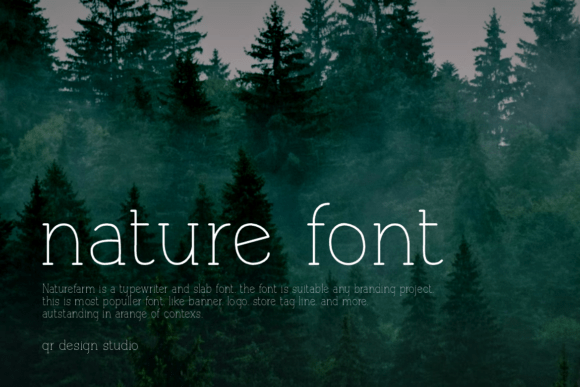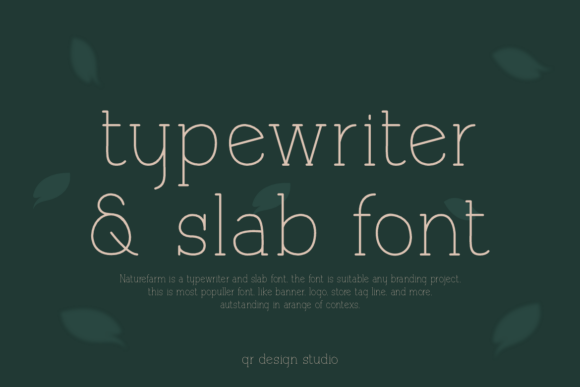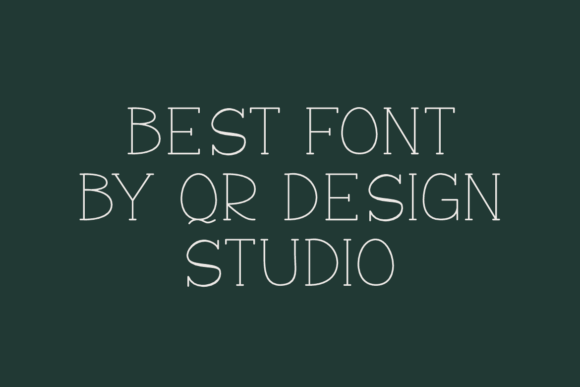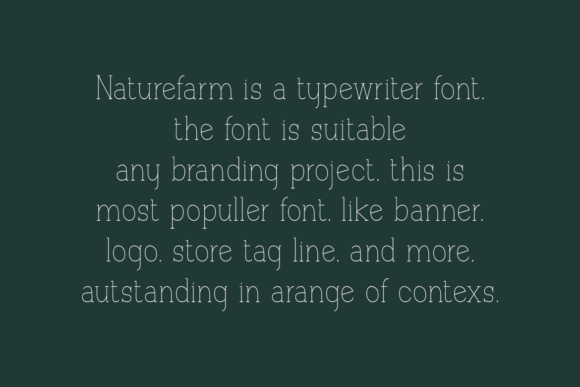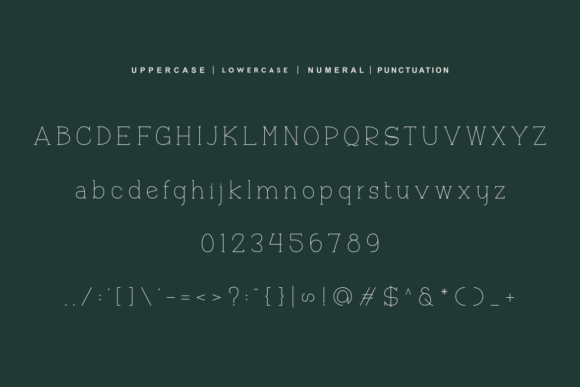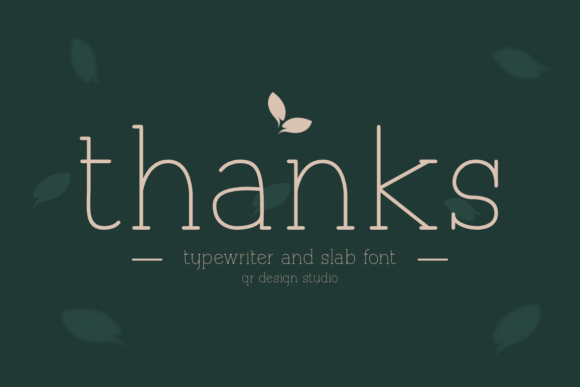
Introduction to Naturefarm Font
Have you ever found yourself wandering through a lush garden or a charming farmers’ market, feeling inspired by the beauty of nature and the simplicity of handmade products? That’s exactly where the Naturefarm Font comes in – a design resource that captures the essence of the great outdoors and brings it to your creative project.
This delightful slab serif font is a treasure trove for designers looking to add a touch of organic elegance to their work. With its soft curves and delicate slab serifs, Naturefarm Font is perfect for eco-friendly branding, farm-to-table packaging, and handcrafted product labels. Whether you’re working on a blog, a label, or a packaging design, this font is sure to bring a warm, natural feel to your high-quality designs.
Key Features of Naturefarm Font
- Features a unique and elegant design, ideal for projects requiring a natural and earthy feel
Honest Review: Naturefarm Font
I recently stumbled upon the Naturefarm Font and was excited to give it a try for my creative project. As a designer, I’m always on the lookout for high-quality design resources to elevate my work, and Naturefarm Font did not disappoint.
What works well with this font is its natural and earthy feel, which makes it perfect for projects related to the outdoors, health, or wellness. The font is highly customizable, with a transparent background that makes it easy to integrate with any design element. The best part? It’s available for free download, making it an excellent choice for designers on a budget.
- ✨ Natural and earthy feel, making it perfect for outdoor or wellness-related projects
- ✨ Highly customizable, with a transparent background for easy integration
However, I did encounter a few limitations with this font. The font is not suitable for all types of projects, and it may not be the best choice for designs that require a more modern or sleek look. Additionally, the font’s weight and size may not be as consistent across different platforms, which could lead to some formatting issues.
Overall, I’m impressed with the Naturefarm Font, and I would definitely recommend it to designers working on creative projects that require a natural and earthy feel. Just be sure to test it out thoroughly to ensure it meets your design needs.
Tips for Getting the Most Out of Naturefarm Font
For the best results, use the Naturefarm Font in conjunction with high-quality images and graphics. Experiment with different font sizes and styles to create a unique look that suits your creative project. Don’t be afraid to get creative and push the boundaries of what’s possible with the Naturefarm Font.
The Naturefarm Font is perfect for a variety of creative projects, including branding, marketing materials, and digital graphics. Its high-quality design and transparent background make it easy to use in a range of applications, from print to digital media.